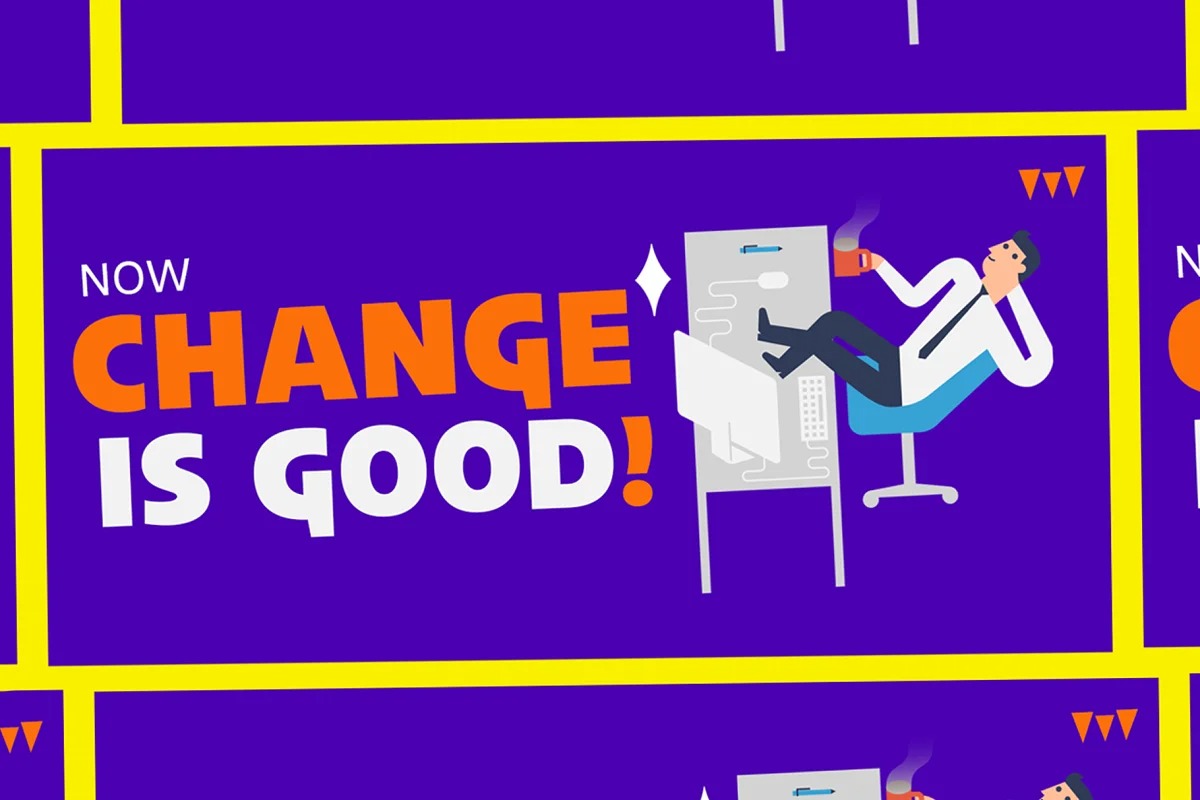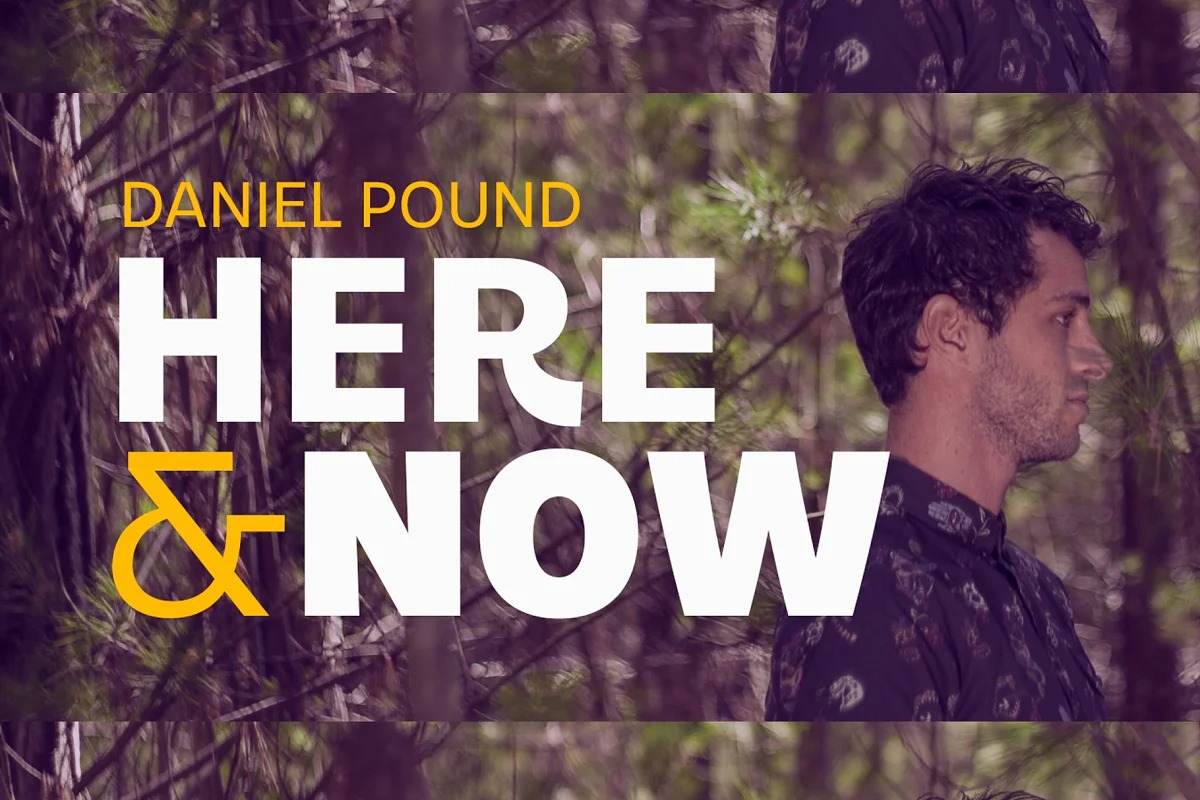
Willner Sans Serif Font
This font is all about geometry, a typography that boosts confidence. Willner is perfect for the headline, and subheadline. There are alternative glyphs that you can choose according to your project. Also, the ligature of the uppercase and lowercase will make it more perfect. Rawkner is an option that you should try for your creative project.